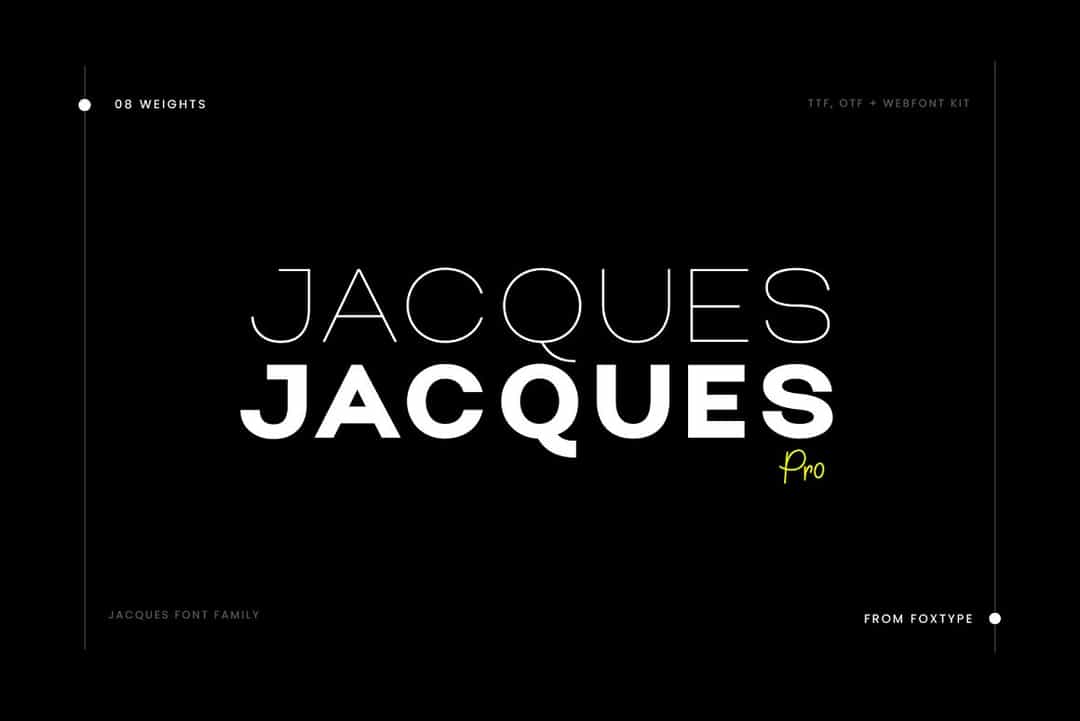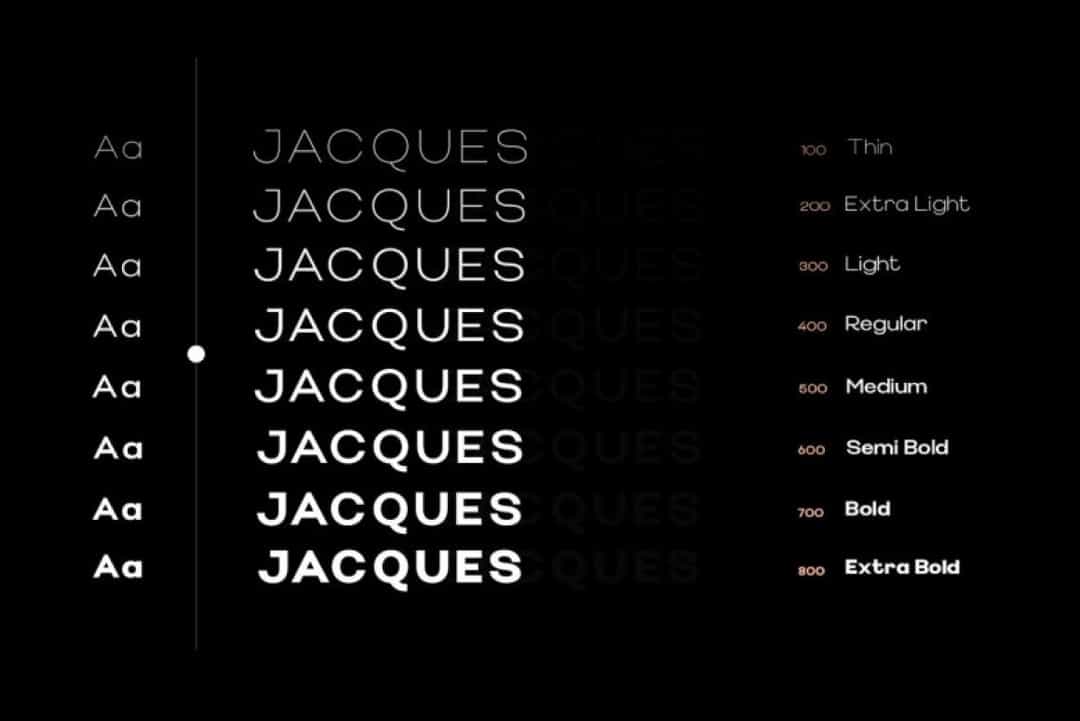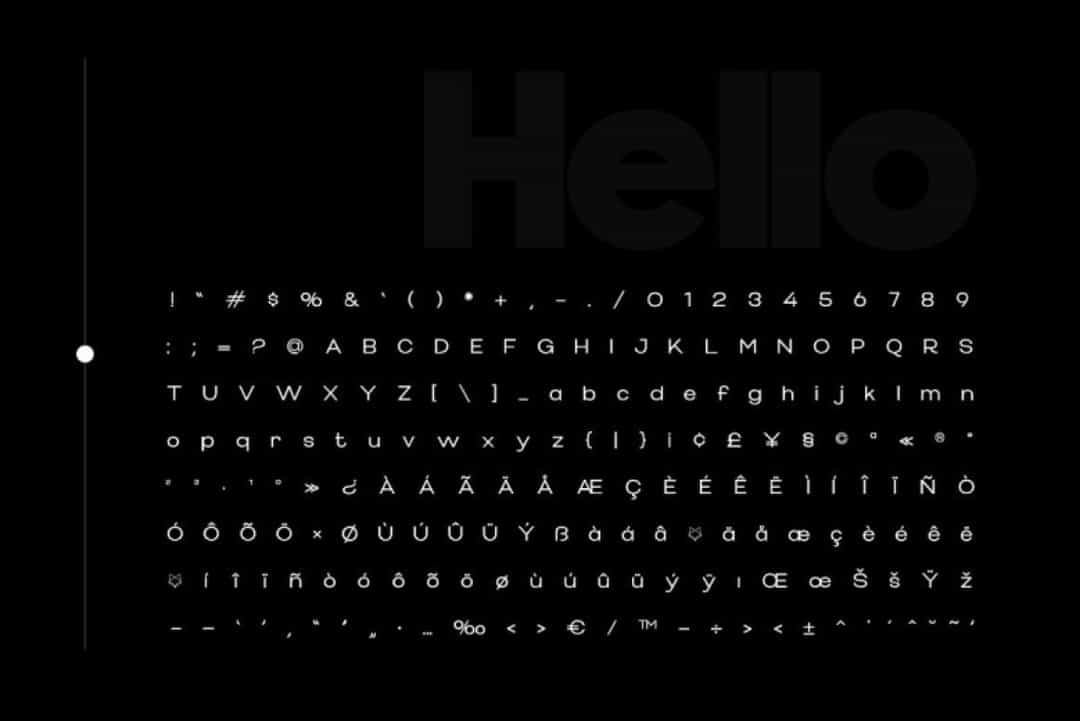
Jacques Prois an elegant and contemporary font family with an uncompromising design. Reliable yet stylish, its uncompromising form and contemporary accents are striking in magazines, logos and movies alike – while Mackenzie Font is perfect for headlines, branding paragraphs, captions or posters.